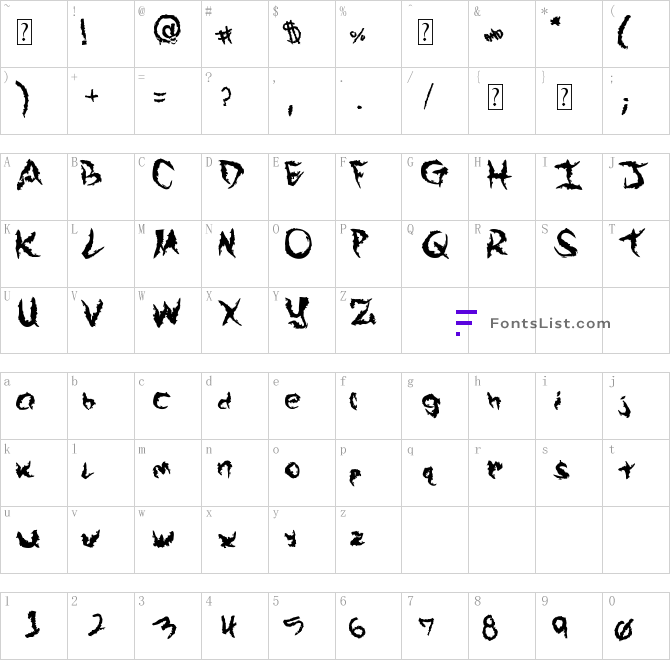
- Font Name:Arek Is So Grungey
Arek-Is-So-Grungey.ttf is a very beautiful artistic font, Arek-Is-So-Grungey.ttf is widely used in the design and printing of various books and pictures,Arek-Is-So-Grungey.ttf has a strong visual impact,Arek-Is-So-Grungey.ttf is a commonly used font in newspapers, magazines and books, and is used in posters, e-commerce Poster design, store design, logo design, font design and other fields.Arek-Is-So-Grungey.